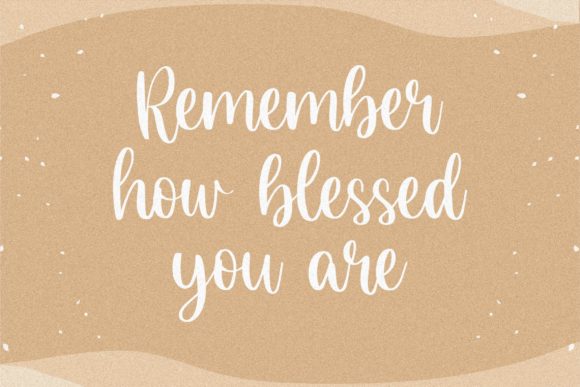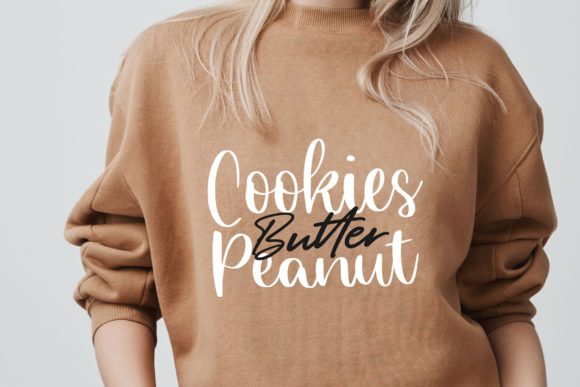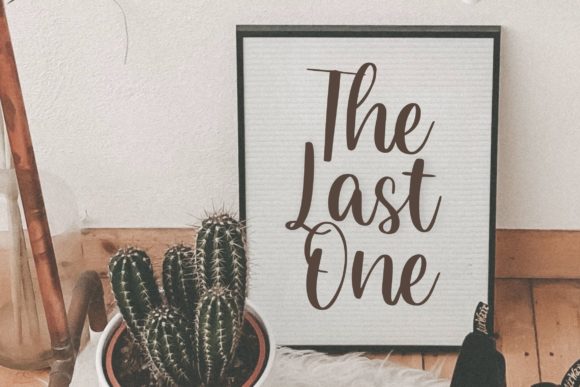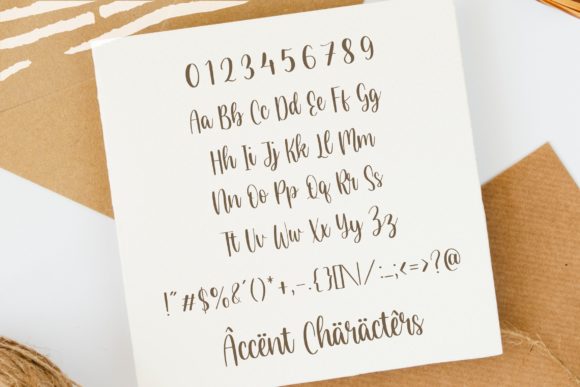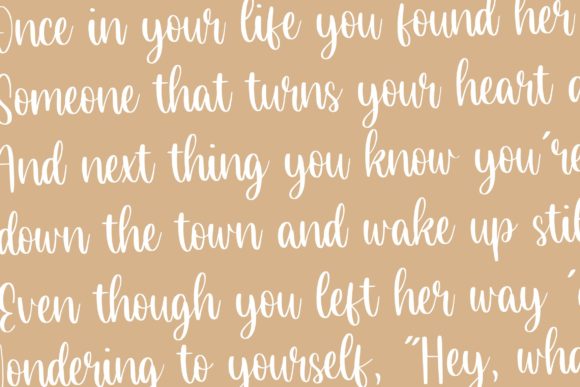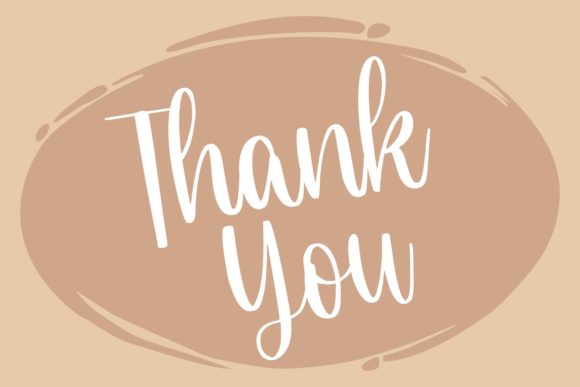
Introducing Almond Delight Font: A Timeless Handwritten Masterpiece
Are you on the hunt for a font that exudes elegance, sophistication, and a touch of whimsy? Look no further than Almond Delight Font, an incredibly distinct, delicate, and timeless handwritten font that is sure to capture your heart. With its incredibly versatile style, Almond Delight is perfect for creating a wide range of designs, from gorgeous wedding invitations and beautiful stationery art to eye-catching social media posts and more.
The Charm of Almond Delight Font
Almond Delight Font is a true masterpiece, boasting a unique and delicate style that is sure to set your designs apart from the rest. Its handwritten charm is perfect for adding a personal touch to any project, making it an excellent choice for designers and crafters looking to create something truly special. Whether you’re working on a wedding invitation, a social media post, or a piece of stationery art, Almond Delight Font is sure to bring a touch of elegance and sophistication to your design.
What Makes Almond Delight Font So Versatile?
One of the things that sets Almond Delight Font apart from other fonts is its incredible versatility. With its delicate and timeless style, this font can be used for a wide range of design projects, including:
- Wedding invitations and stationery: Create beautiful and elegant wedding invitations, RSVP cards, and other stationery items that will set the tone for your special day.
- Social media posts: Add a touch of whimsy and elegance to your social media posts with Almond Delight Font, perfect for creating eye-catching graphics and promotional materials.
- Stationery art: Use Almond Delight Font to create beautiful pieces of stationery art, including greeting cards, thank-you cards, and more.
- Branding and packaging: Add a touch of sophistication to your brand’s packaging and marketing materials with Almond Delight Font.
Why Designers and Crafters Love Almond Delight Font
Designers and crafters alike are sure to fall in love with Almond Delight Font, thanks to its unique combination of elegance, sophistication, and whimsy. Here are just a few reasons why:
- Ease of use: Almond Delight Font is incredibly easy to use, even for those with limited design experience.
- Customization: With its wide range of characters and glyphs, Almond Delight Font offers endless opportunities for customization and creativity.
- Timeless style: Unlike trendy fonts that quickly go out of style, Almond Delight Font boasts a timeless style that will remain elegant and sophisticated for years to come.
Tips for Getting the Most Out of Almond Delight Font
To get the most out of Almond Delight Font, here are a few tips to keep in mind:
- Experiment with different colors: Almond Delight Font looks stunning in a wide range of colors, from soft pastels to rich jewel tones.
- Play with texture: Add depth and interest to your designs by combining Almond Delight Font with different textures and patterns.
- Mix and match: Don’t be afraid to mix and match Almond Delight Font with other fonts and design elements to create a unique and eye-catching look.
In conclusion, Almond Delight Font is a truly special font that is sure to capture the hearts of designers and crafters alike. With its delicate and timeless style, incredible versatility, and ease of use, this font is perfect for creating a wide range of designs, from gorgeous wedding invitations and beautiful stationery art to eye-catching social media posts and more. So why wait? Fall in love with Almond Delight Font today and start creating stunning designs that will leave a lasting impression.